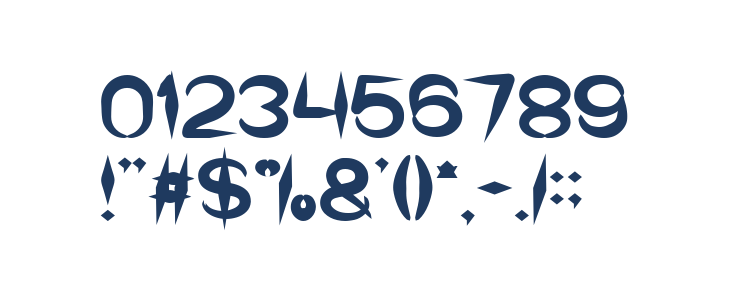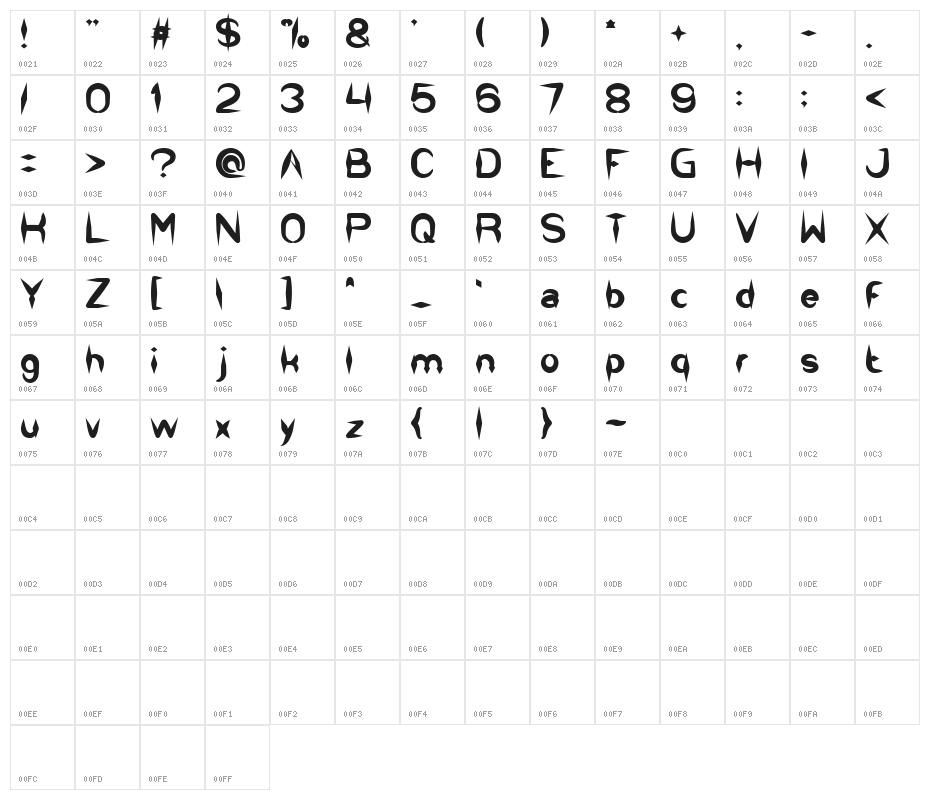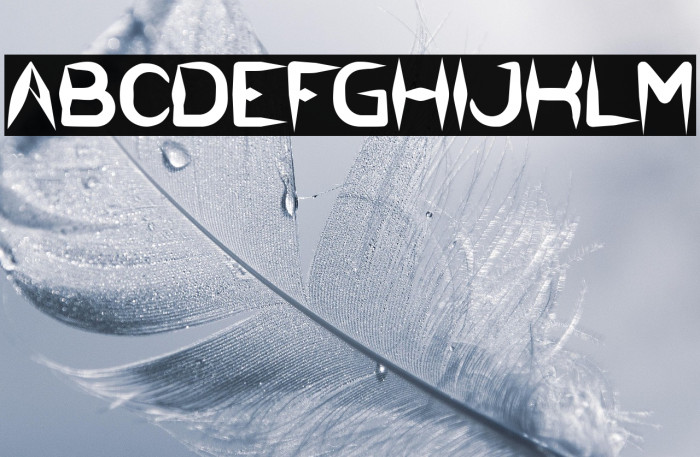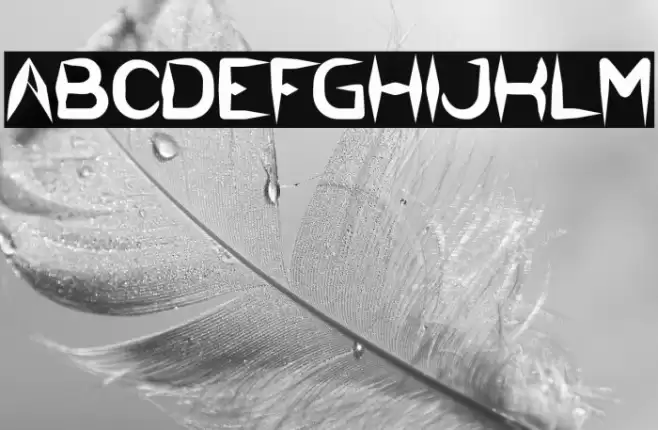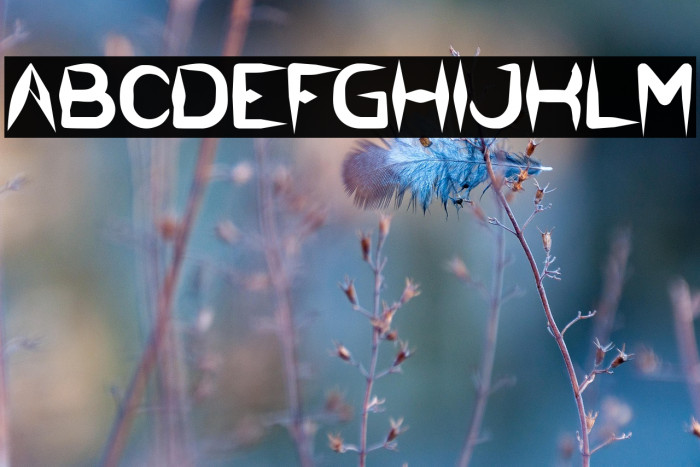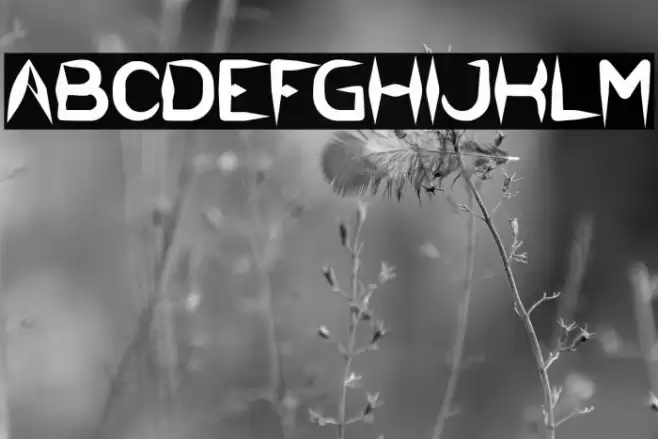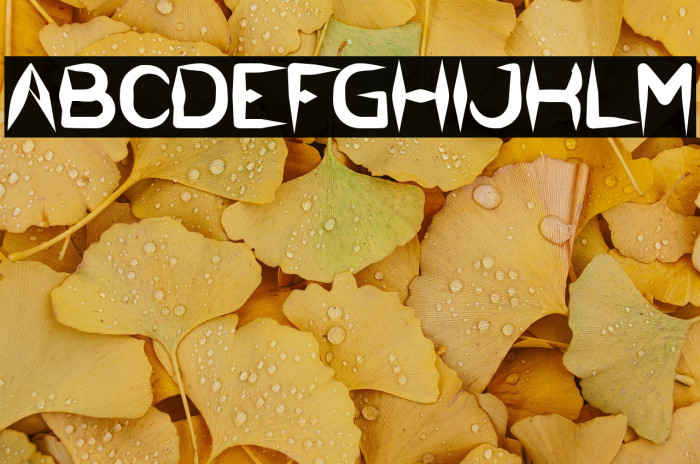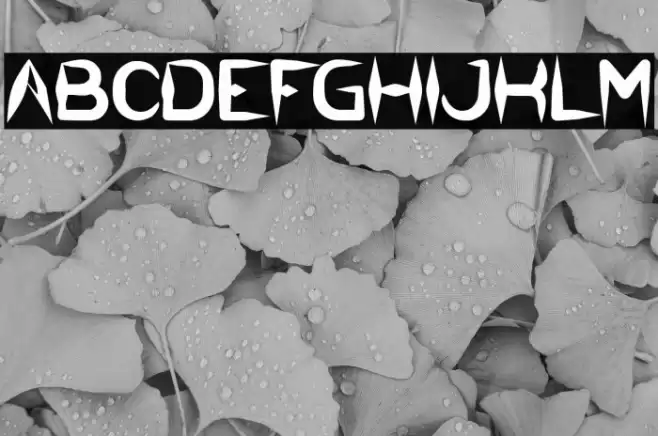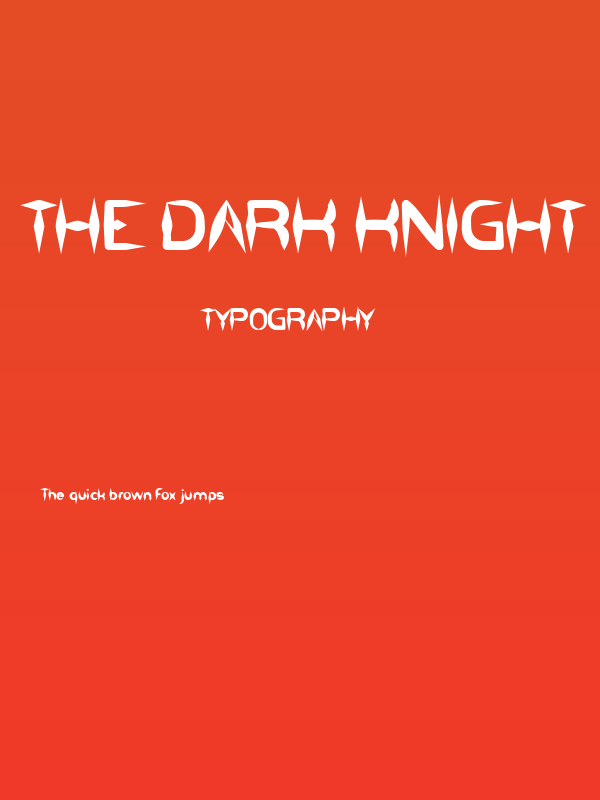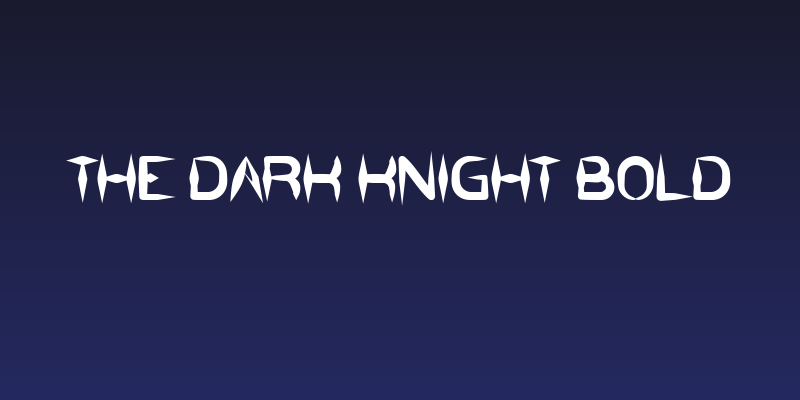
The Dark Knight Bold Font
The Dark Knight Bold Description
This font features a bold and dramatic style with sharp, angular edges and a distinct, edgy appearance. The characters are designed with a unique flair, incorporating pointed elements that give them a dynamic and intense look. The uppercase and lowercase letters maintain a consistent style, with the uppercase being more pronounced. The numbers and special characters follow the same design principles, ensuring a cohesive appearance across all elements. This font's striking design makes it ideal for projects that require a bold and impactful visual statement.
| Overall Style | Modern, Dramatic |
| Proposed Projects | Ideal for movie posters, video game covers, branding for edgy products, or any project needing a strong visual impact. |